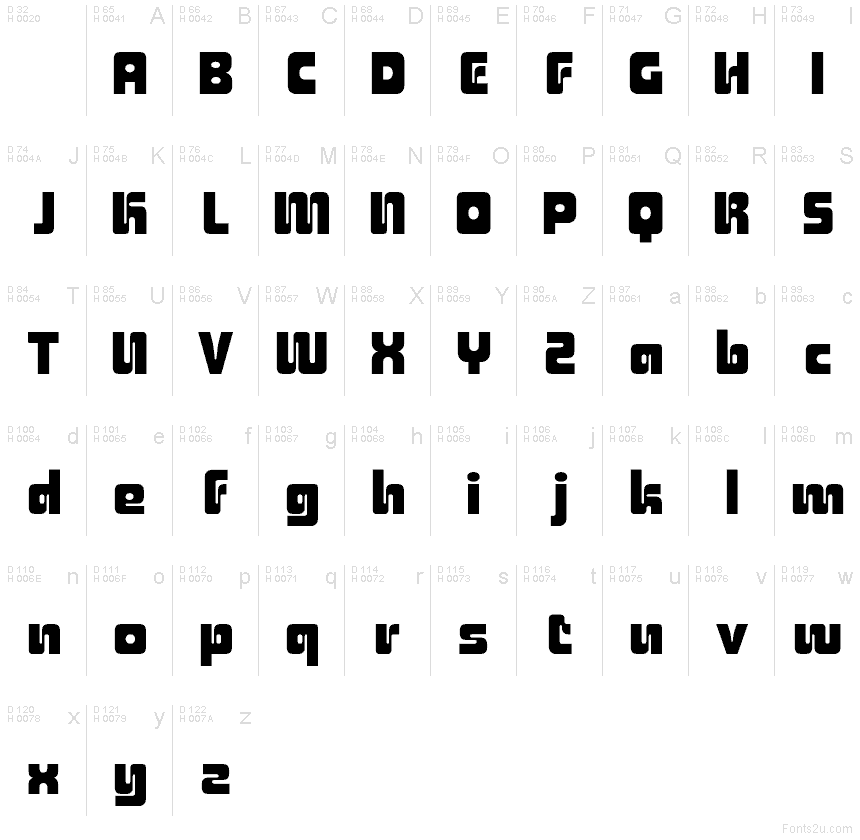
CS Randy Regular Demo
CS Randy font by Craft Supply Co. is a free bold decorative display font. Built from chunky rectangles softened into pill-shaped curves, it mixes squared shoulders with rounded counters for a playful, retro-futurist vibe. The strokes feel rubbery and dense, with tight spacing that locks words into confident blocks, while quirky inner curves add a wink of personality without getting messy.
Using CS Randy, headlines snap into place for gaming logos, snack or beverage packaging, event posters, storefront signage, app banners, and YouTube thumbnails. This free font loves large sizes and simple layouts; give it a touch of extra tracking at smaller scales. For body copy, pair it with a light, neutral sans to let CS Randy do the heavy lifting in your hierarchy.